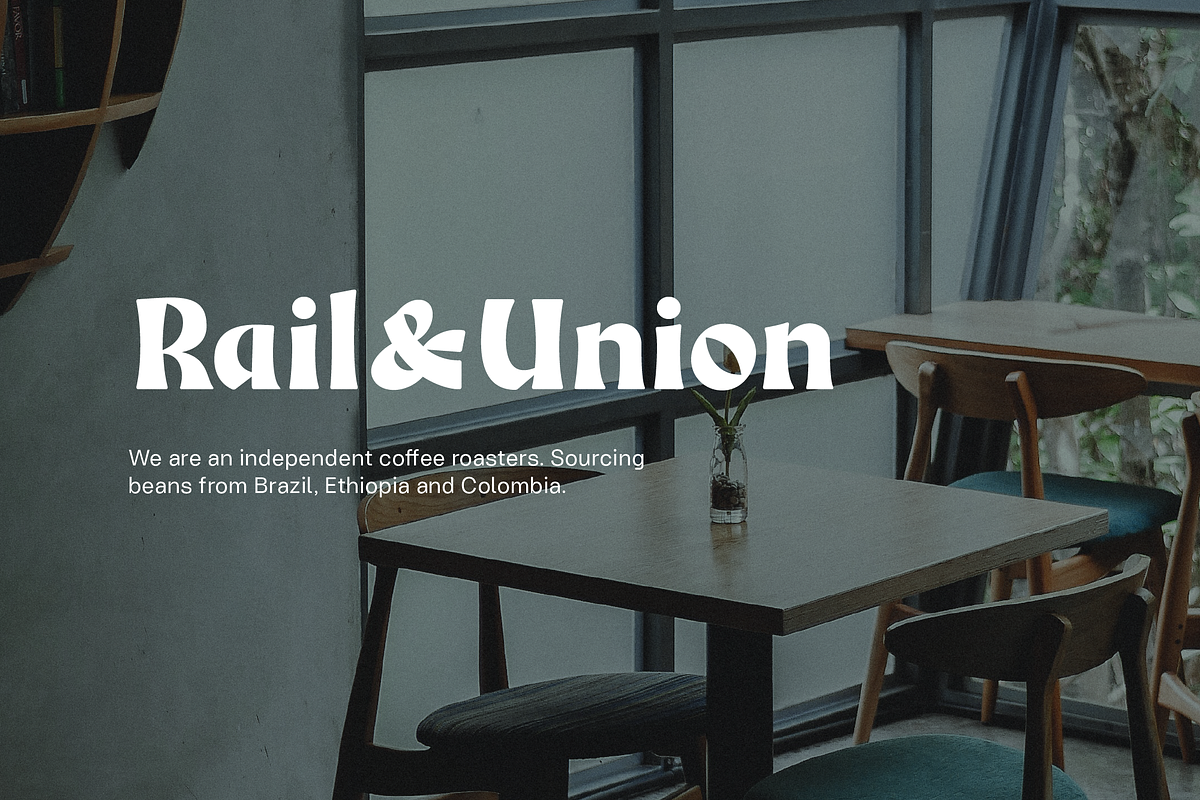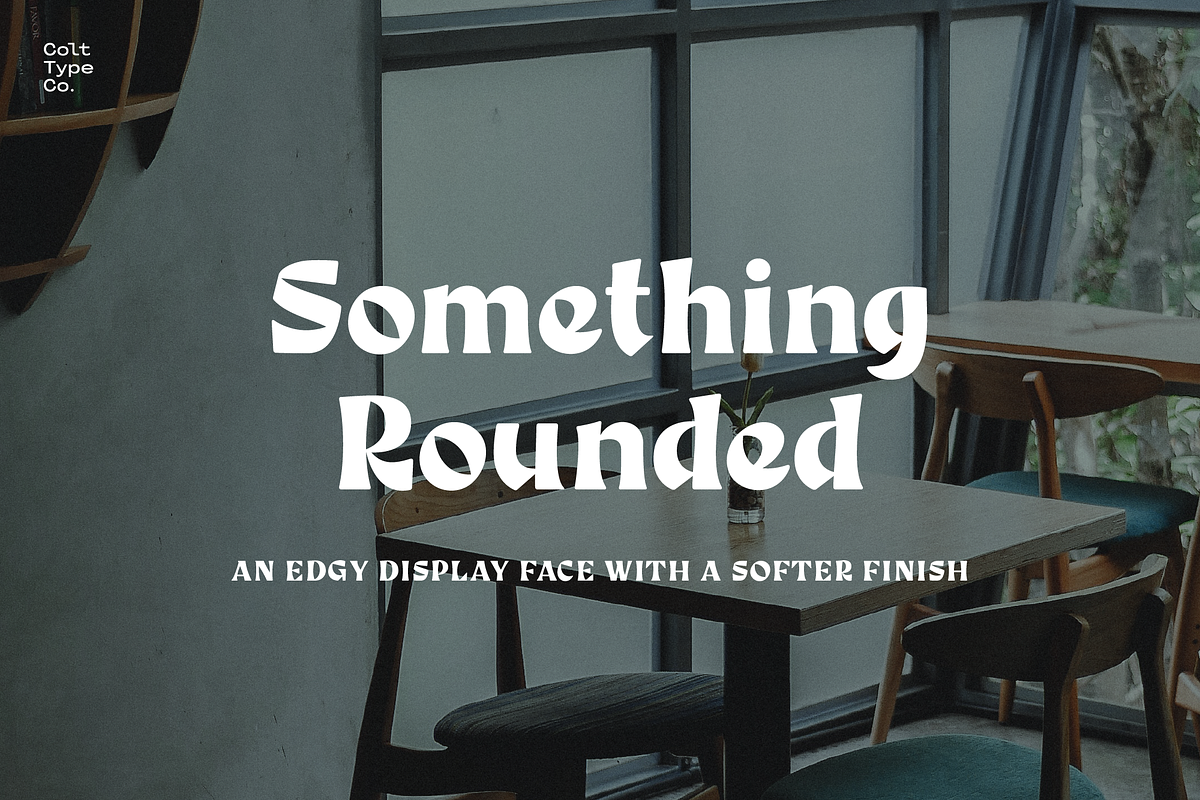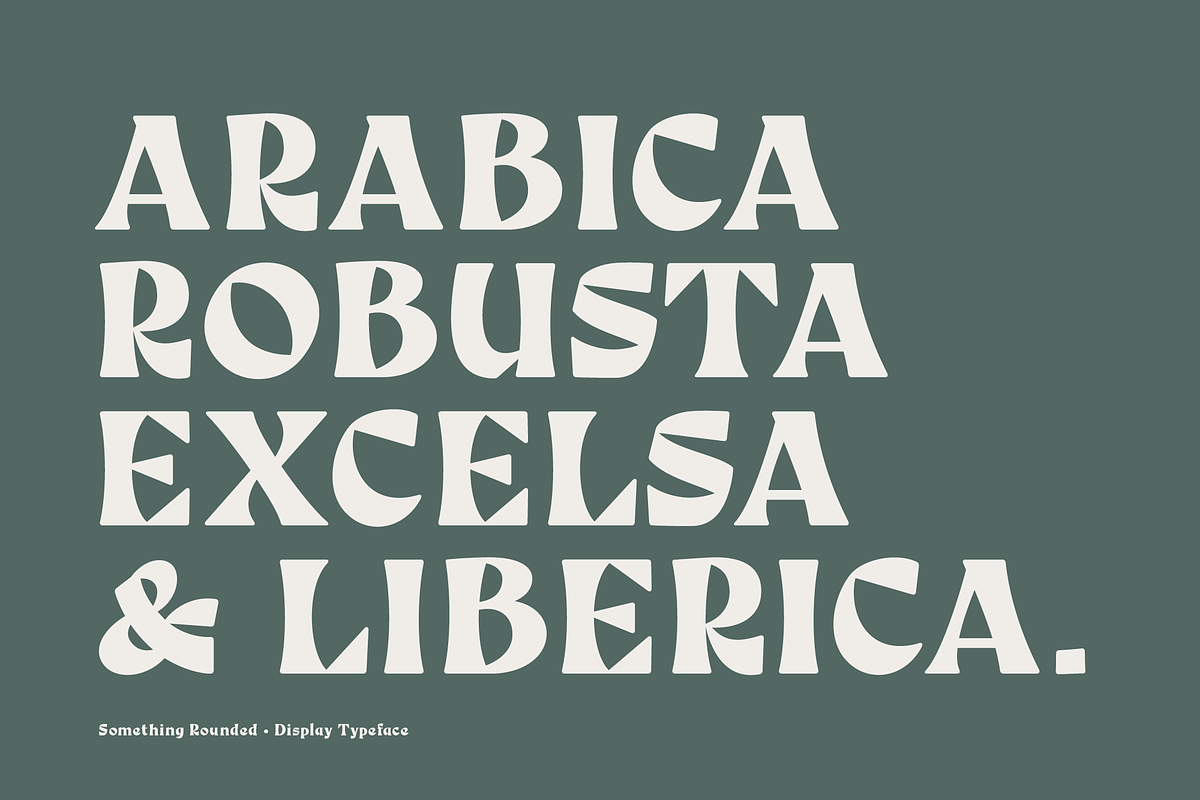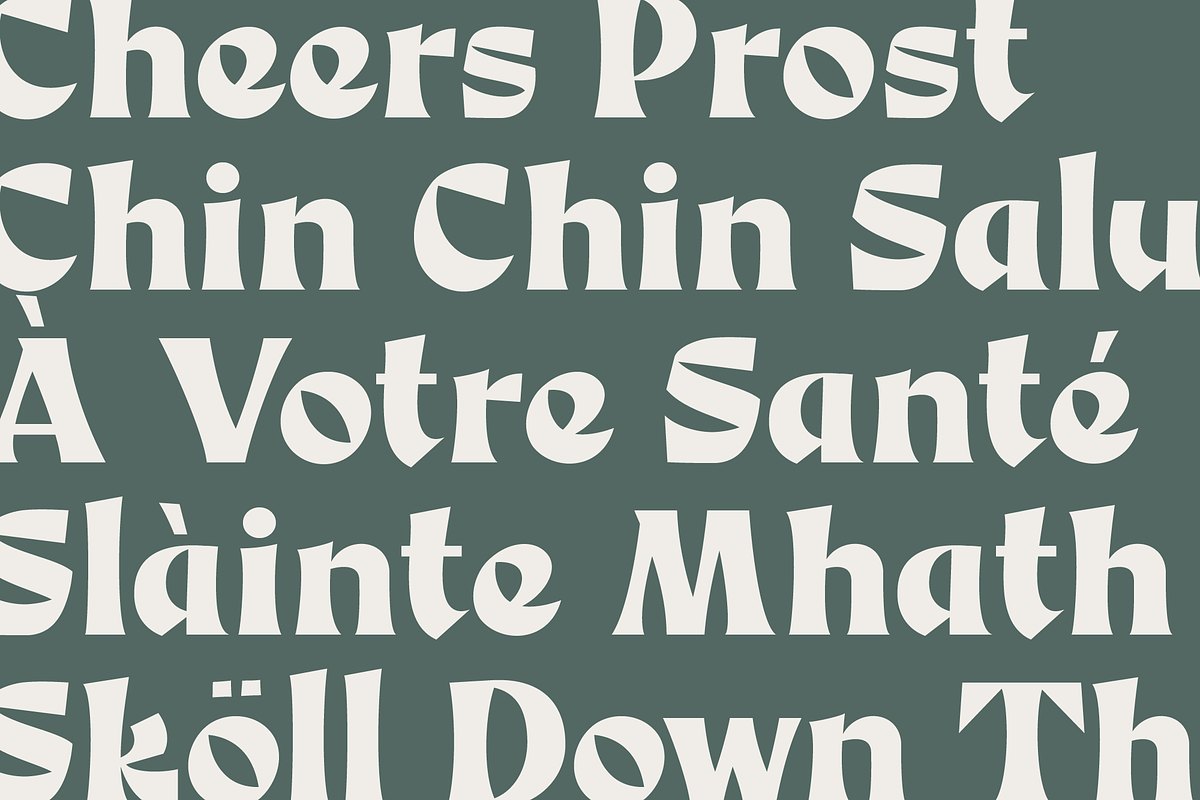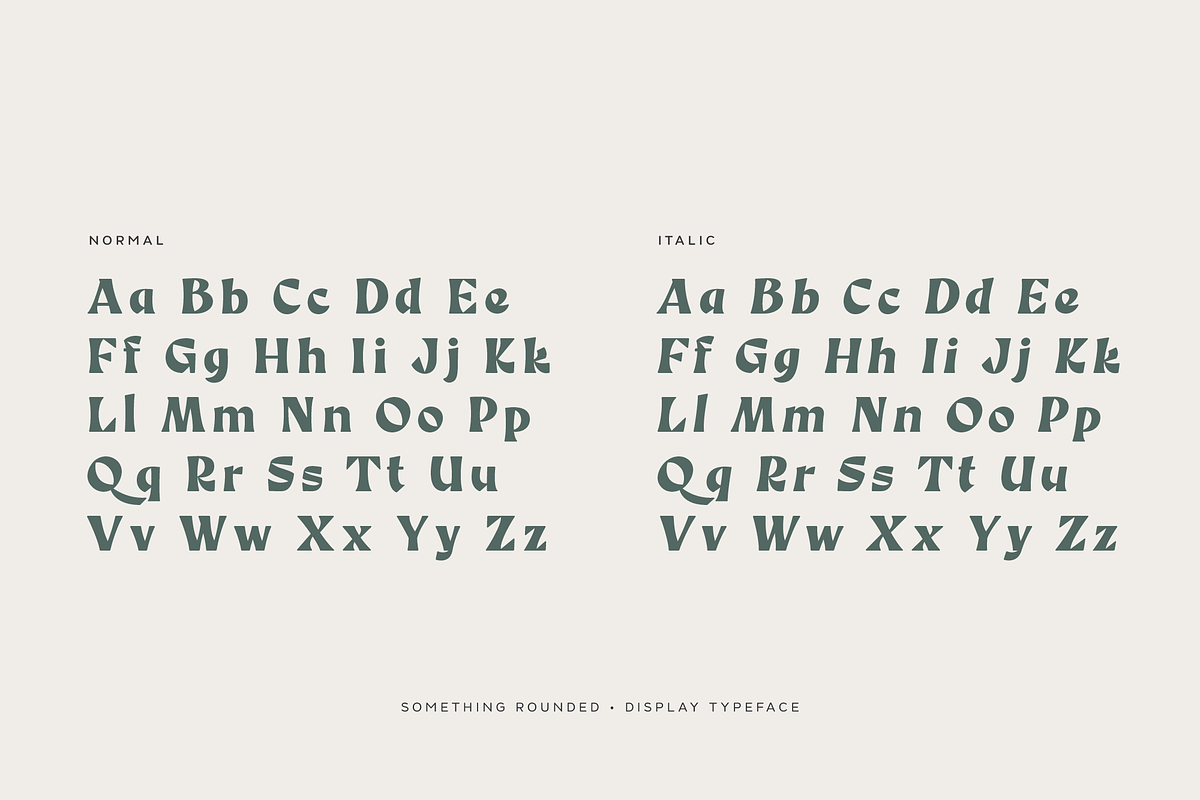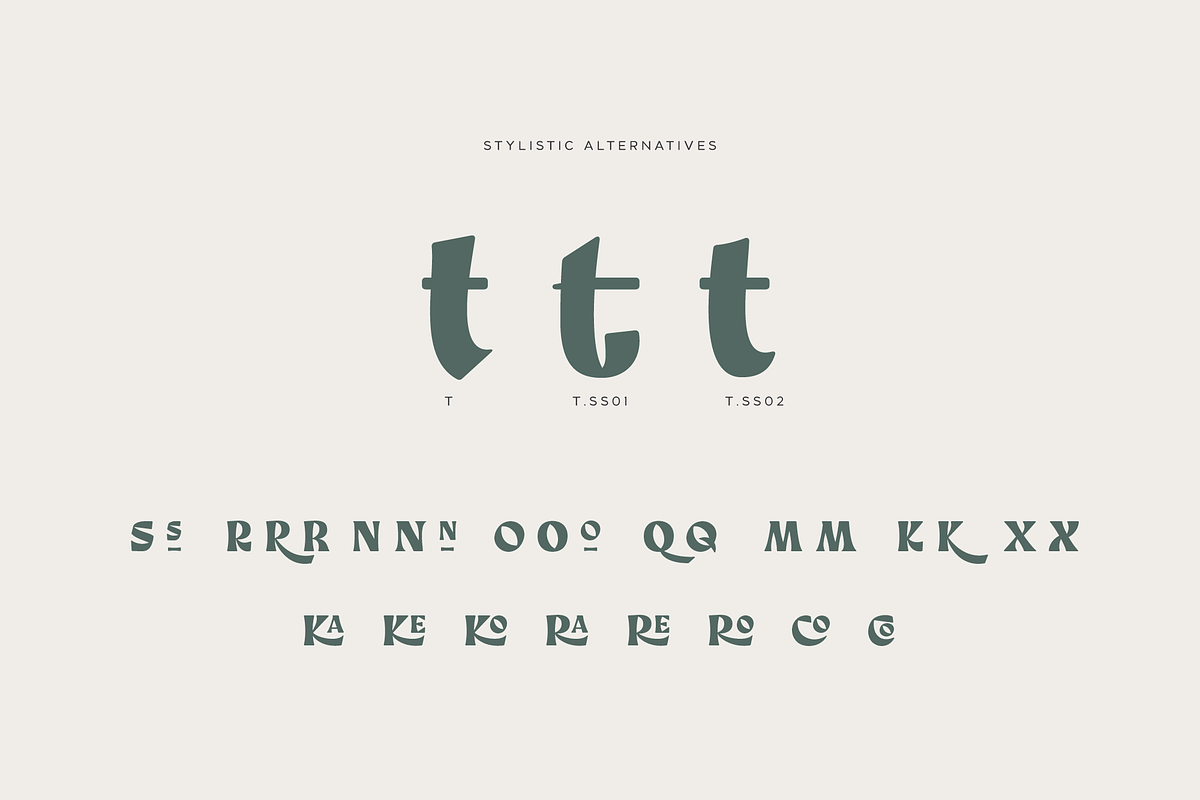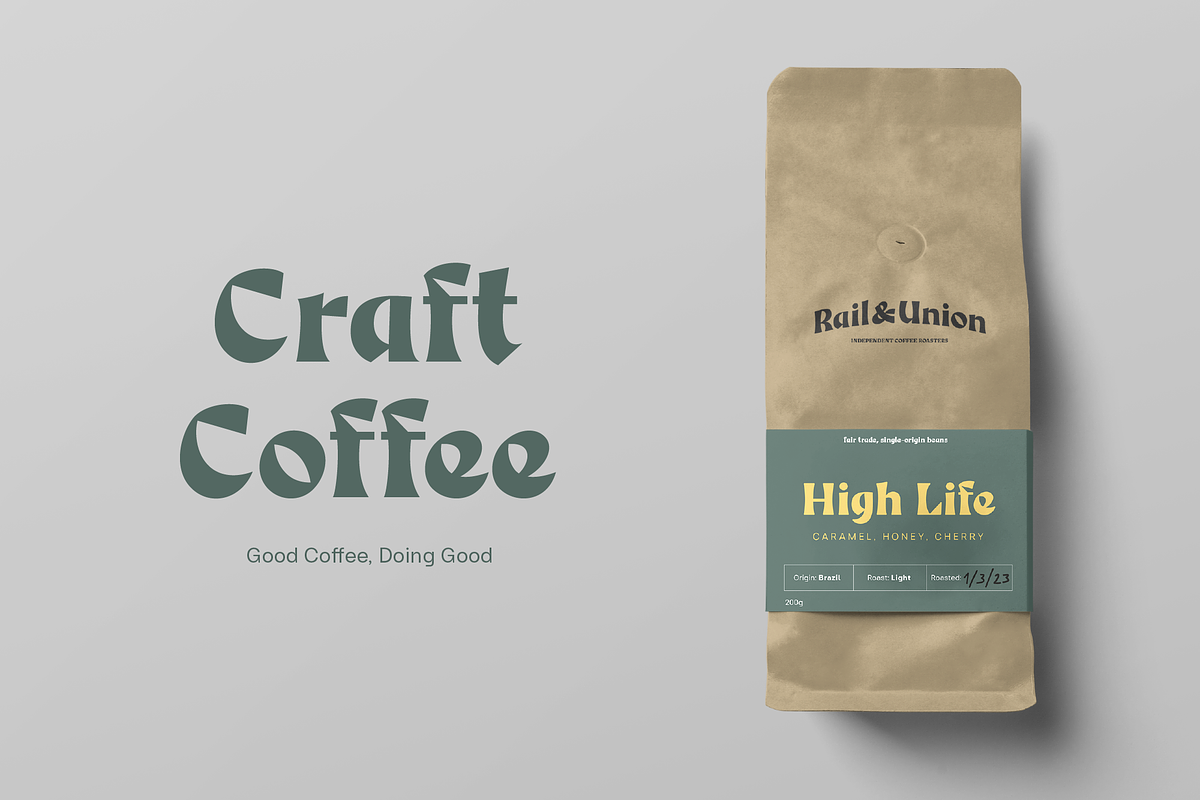
Something Rounded Serif Blackletter
Something Rounded, a serif blackletter, has been designed with logo designers and typographers firmly in mind. This feature-packed display font is a perfect addition to your design arsenal, ready for your next logotype, heavy heading, or Coffee label.
"A modern mix of serif and blackletter with a touch of vintage"
Stylistic sets & alternatives. Discretional ligatures. Covers; Basic, Western European, Central European, and South-Eastern European languages. OTF and Web fonts (WOFF, WOFF2, EOT) Over 400 glyphs. Something Rounded looks amazing when used alongside Adget Sans - https://crmrkt.com/E79G65